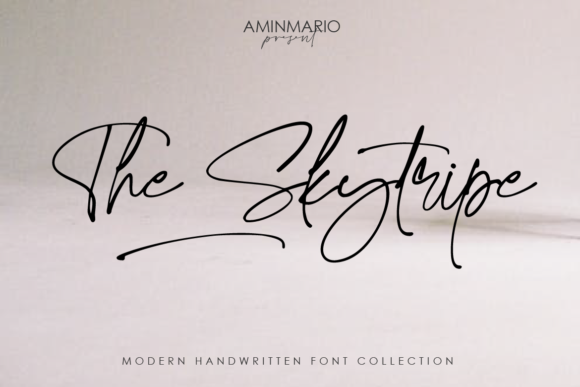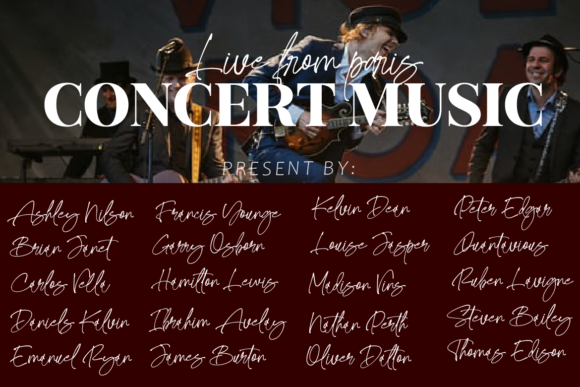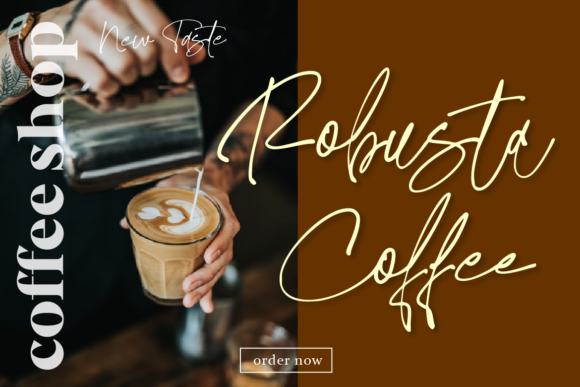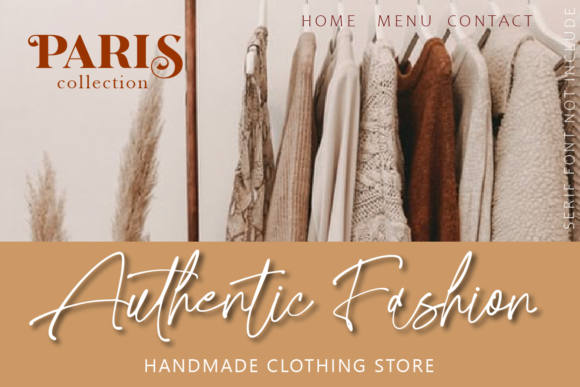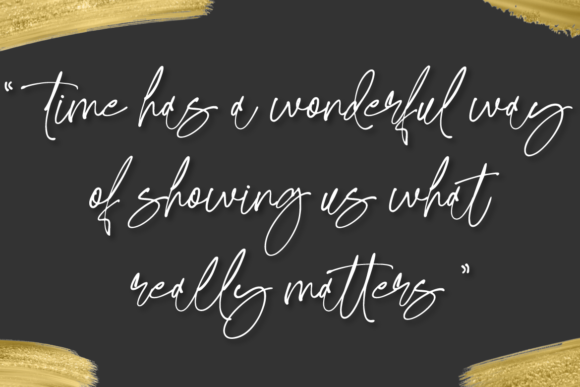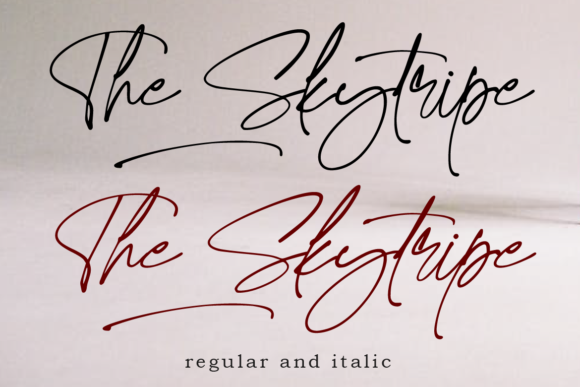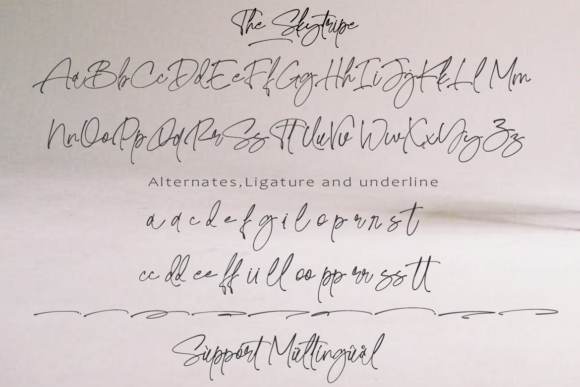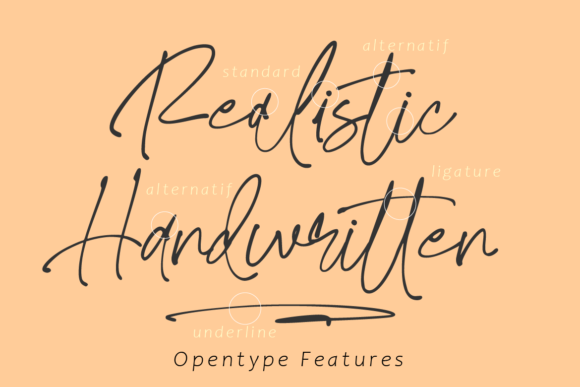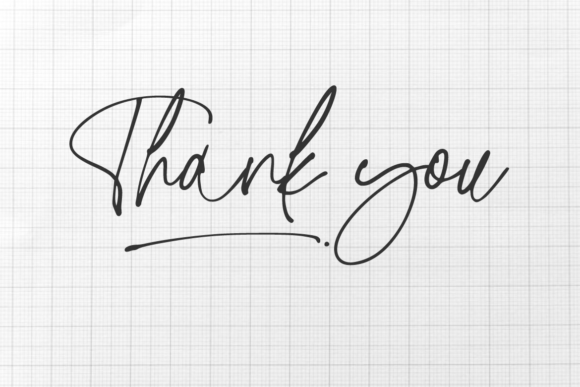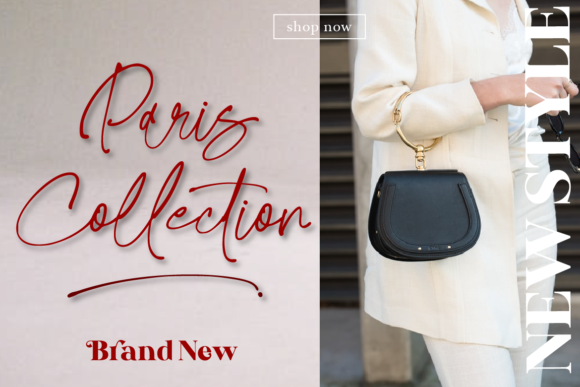
The Skytripe Font
About The Skytripe Font
The Skytripe font is modern and elegant handwritten with a quick stroke pen effect. This font creates a natural look that is perfect for projects needing a handwritten taste. This script comes to life as if you were writing it yourself!